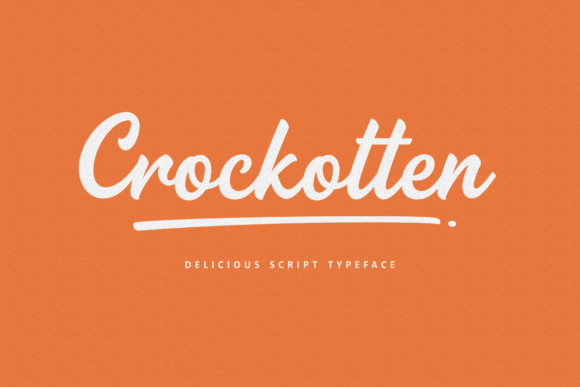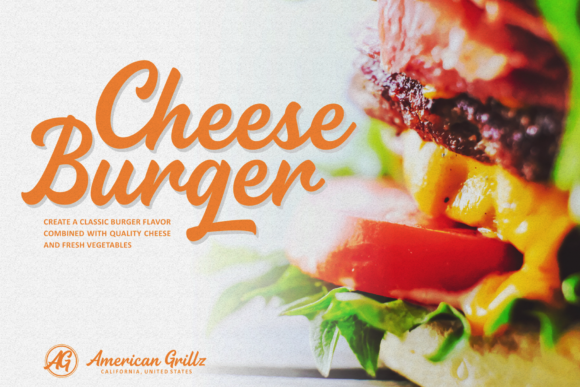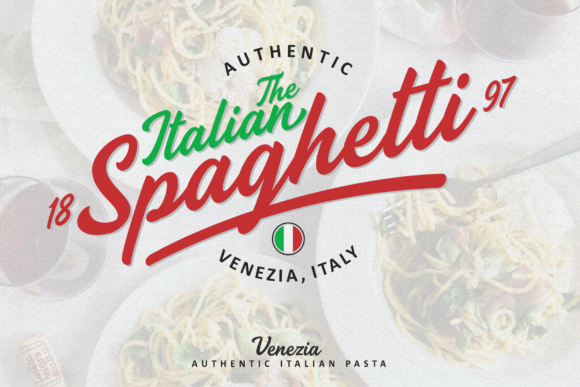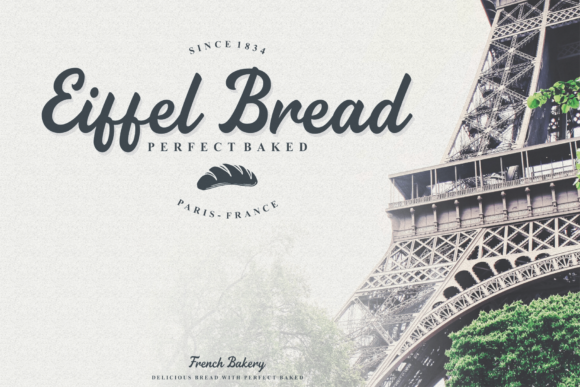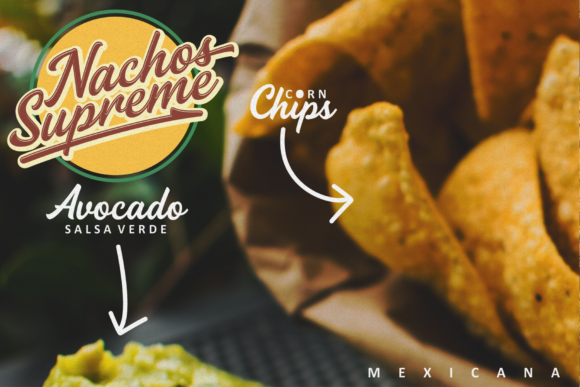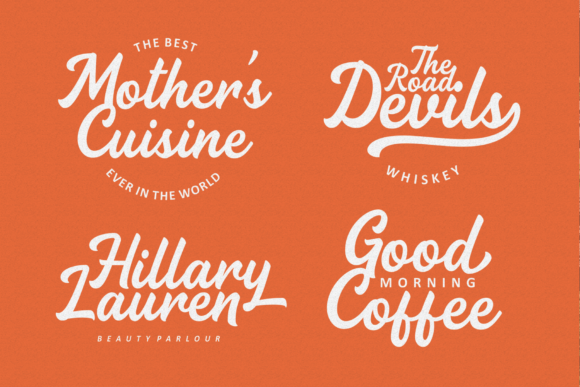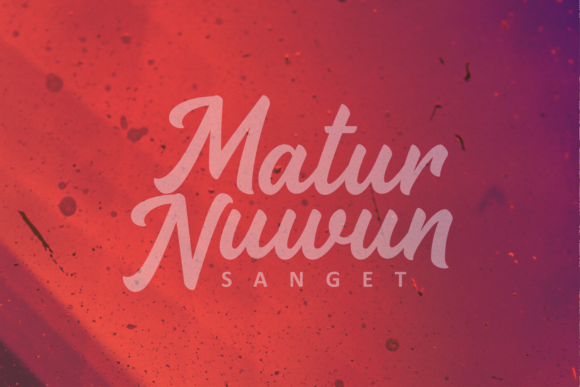
HomeScript FontsCrockotten Font Script Fonts Crockotten Font FacebookXPinterestWhatsApp Crockotten Font Poster 2 Crockotten Font Poster 3 Crockotten Font Poster 4 Crockotten Font Poster 5 Crockotten Font Poster 6 Crockotten Font Poster 7 About Crockotten Font Crockotten is a script font that is very flexible and fun. It is perfect for a variety of creative projects! DOWNLOAD ON CREATIVE FABRICAThis font is sold and delivered by Creative Fabrica. Font Canyon may earn a commission if you buy through this link. People also explored Scott Walker Font Millstversy Dellyma Font Parisian Packaging Font Rosella Flakes Font Frambozen Font Play Lamp Font Thephir Font Love Timer Font 283 0 TagsCrockotten Font Previous articleMonogram a | Monofont Caps a FontNext articleFunky Signature Font LEAVE A REPLY Cancel reply Comment: Please enter your comment! Name:* Please enter your name here Email:* You have entered an incorrect email address! Please enter your email address here Website: Save my name, email, and website in this browser for the next time I comment. Personal Use Free Wallabys Junior Personal Use Free Read more about this font Heartburn Personal Use Free Read more about this font Almonte Personal Use Free Read more about this font Planning Personal Use Free Read more about this font BLOG Using Fonts in Digital Marketing: Tips to Strengthen Your Brand Identity In the realm of digital marketing, every visual element plays a crucial role in shaping a brand's identity, and fonts are no exception. The... To increase your work productivity, choose the most readable fonts. Best Fonts for YouTube Videos: Make Your Thumbnails Stand Out Elegant Wedding Invitation Fonts – Handwritten & Script Fonts